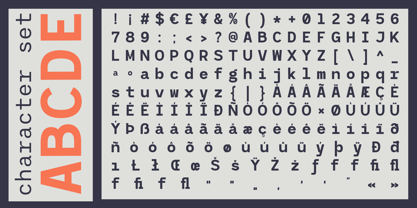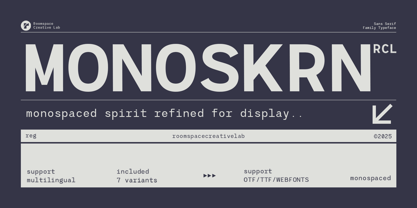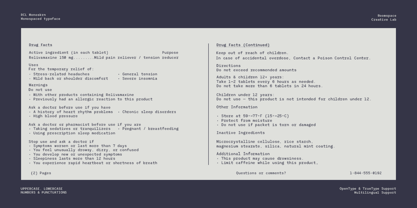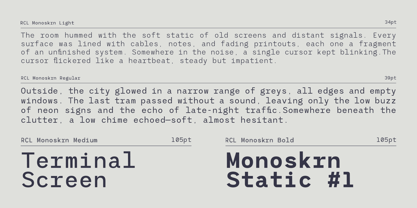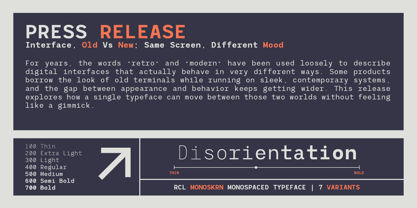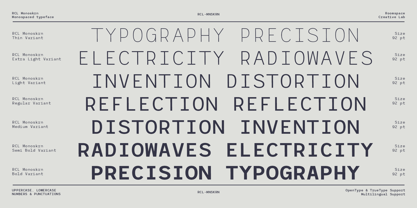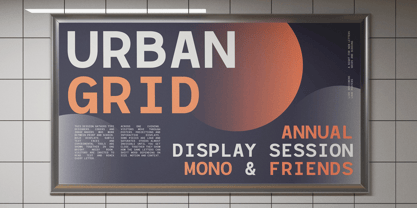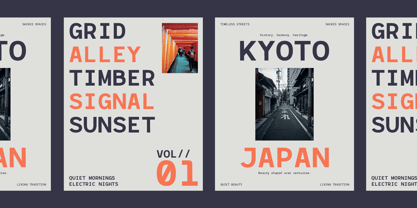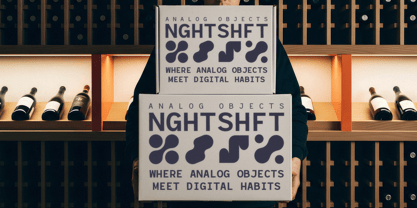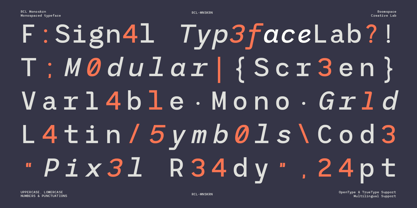
RCL Monoskrn
The RCL Monoskrn Font Family was designed by Bakhrudin Ja'far and published by Jafar07. RCL Monoskrn contains 14 styles and family package options. More about this family
RCL Monoskrn is a modern sans-serif with monospaced heritage precise, structured, and engineered. It blends coding-inspired rhythm with proportional sans clarity, making it reliable for branding, UI, editorial, and identity systems.RCL Monoskrn is a modern monospaced-inspired sans serif designed for clarity and technical precision. It brings the structured spirit of coding fonts into a proportional sans system making it highly usable for branding, interfaces, and editorial layouts. With 14 functional variants, Monoskrn balances monospaced character width logic with smooth proportional spacing for improved readability. Features : 14 variants included Monospaced-inspired sans serif Uppercase & lowercase Multilingual support Perfect For : Tech branding, dashboards, UI/UX, product design, editorial layouts, software graphics